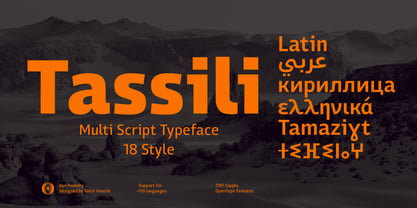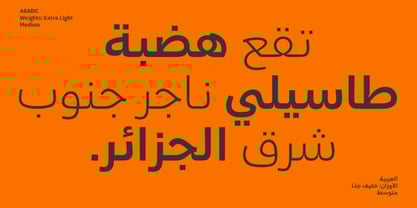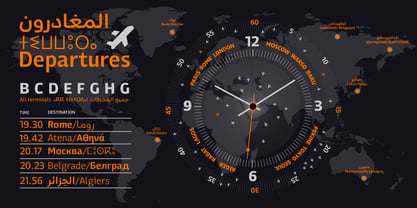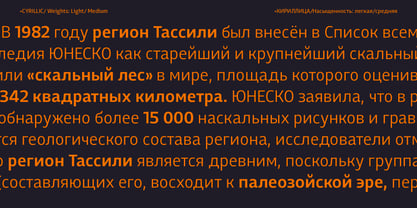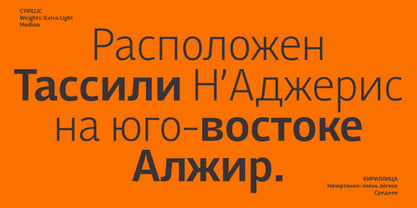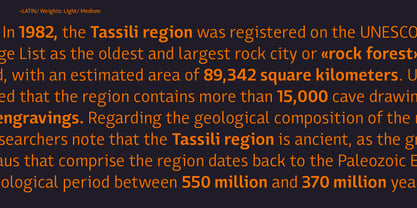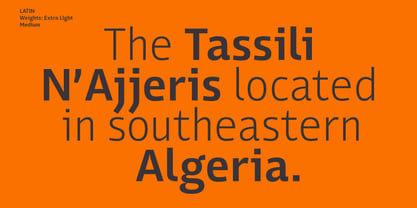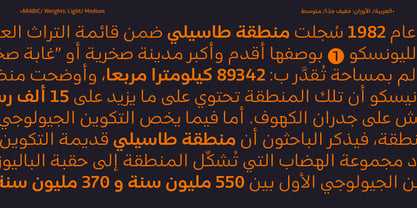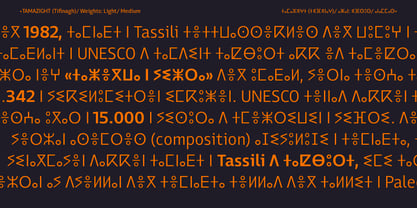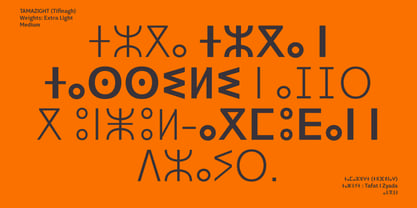
Tassili
by Ayn Foundry
The Tassili Font Family was designed by Nacir Imache and published by Ayn Foundry. Tassili contains 18 styles and family package options.
Tassili is a versatile, multi-script sans serif typeface meticulously crafted to honor linguistic diversity and empower global communication. Designed to serve the typographic needs of languages including Tamazight (Tifinagh), Arabic, Latin, Greek, and Cyrillic, Tassili bridges cultural expression with contemporary design—enriching typographic libraries while enabling brands to maintain a consistent visual identity across scripts and regions. With a generous x-height and subtly condensed proportions, Tassili strikes an elegant balance between legibility and space efficiency. Its forms are rooted in geometric clarity, yet animated by distinctive terminal cuts and sharp internal and external angles that lend each character a dynamic, modern character. Most importantly, the design philosophy prioritizes harmony across scripts—respecting the unique calligraphic traditions of each writing system while unifying them under a cohesive visual language. Tassili supports over 110 languages and writing systems and offers a comprehensive range of weights—from delicate Thin to bold Black—each accompanied by matching italics. Enhanced with rich OpenType features—including stylistic alternates, tabular and oldstyle figures, fractions, and extended language support—the family delivers exceptional typographic flexibility. Whether used in branding, corporate identity, advertising, signage, wayfinding, or digital and print media, Tassili empowers designers to communicate with clarity, confidence, and cultural sensitivity across the globe.
Designers: Nacir Imache
Publisher: Ayn Foundry
Foundry: Ayn Foundry